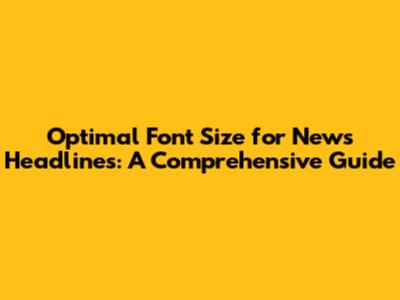
Optimal Font Size For News Headlines: A Comprehensive Guide
Optimal Font Size for News Headlines: A Comprehensive Guide
Choosing the right font size for news headlines is super important, guys! It’s not just about making things look pretty; it’s about grabbing attention, making sure your message is clear, and keeping readers hooked. Think of it this way: the headline is the first handshake with your audience. You want it to be firm, friendly, and memorable. So, let's dive into why font size matters, what the pros usually do, and how you can pick the perfect size for your awesome content.
Why Font Size Matters for Headlines
Font size, believe it or not, plays a massive role in how people perceive your content. A headline that's too small might get lost in the noise, while one that's too large can feel overwhelming and unprofessional. The goal is to strike that sweet spot where the headline is both eye-catching and easy to read. When readers can quickly grasp the essence of your article, they're way more likely to click and read on. This is especially true in today's fast-paced digital world, where everyone is bombarded with information.
Moreover, the right font size impacts readability and user experience. Imagine trying to read a headline that's so tiny you have to squint – not a great experience, right? On the flip side, a headline that's excessively large can disrupt the visual flow of the page, making it hard for readers to navigate. By carefully selecting the appropriate font size, you can ensure that your headlines are accessible and enjoyable to read, which ultimately boosts engagement and readership.
Think about the platform too. What works on a desktop might not work on a mobile phone. You have to consider how your headlines will look on different devices and screen sizes. Responsiveness is key! A well-chosen font size contributes significantly to the overall aesthetic appeal of your website or publication. It helps create a visually pleasing and cohesive design that enhances the user experience. When headlines are appropriately sized and styled, they complement the surrounding content and contribute to a professional and polished look. This attention to detail can make a big difference in how readers perceive the credibility and quality of your publication.
Standard Font Sizes Used by News Outlets
So, what do the pros do? Well, it varies, but there are some common ranges you'll see across the board. For desktop sites, news outlets often use font sizes between 24 and 36 pixels for main headlines. This range tends to provide a good balance between visibility and aesthetics. Subheadings usually fall in the 18 to 24 pixel range, creating a clear hierarchy and helping readers scan the content easily.
On mobile devices, things change a bit because of the smaller screen size. Headlines are often sized between 18 and 24 pixels to ensure they remain readable without overwhelming the screen. Subheadings typically range from 14 to 18 pixels. Consistency is also key. Major news sites usually stick to a limited set of font sizes and styles to maintain a cohesive brand identity. This makes it easier for readers to recognize and trust their content.
Of course, there are always exceptions. Some publications might use larger or smaller font sizes depending on their specific design aesthetic and target audience. However, these standard ranges serve as a good starting point for most news outlets. Analyzing popular news websites can give you a sense of what works well in practice. Pay attention to how they use font sizes, styles, and spacing to create visually appealing and readable headlines. You can also use online tools to test the readability of your headlines and ensure they meet accessibility standards.
Factors to Consider When Choosing Font Size
Okay, so how do you pick the perfect font size? It's not just a random choice; a lot goes into it. First off, think about your audience. Who are you writing for? A younger audience might be okay with bolder, larger fonts, while an older demographic might appreciate something a bit more conservative and readable. Knowing your audience helps you tailor your font choices to their preferences and needs.
Next, consider the font itself. Some fonts look bigger than others even at the same pixel size. A bold, blocky font will naturally stand out more than a thin, elegant one. Experiment with different fonts and sizes to see what looks best for your specific headline. Also, think about the length of your headlines. A super long headline might need a slightly smaller font size to fit nicely on the page. Short, punchy headlines can usually handle a larger font size.
Your website's design also plays a big role. The font size you choose should complement the overall look and feel of your site. It should also work well with your brand's color scheme and imagery. Consistency is super important here! Make sure your headlines look consistent across all pages and devices. This helps create a professional and cohesive user experience. Finally, always test your font choices on different devices and browsers. What looks great on your desktop might not look so great on a mobile phone. Use responsive design techniques to ensure your headlines look their best no matter how your audience is viewing them.
Best Practices for Headline Typography
Conclusion
So, there you have it! Picking the right font size for your news headlines is a mix of art and science. It's about understanding your audience, knowing your fonts, and using the right tools to test and optimize. By following these tips and best practices, you can create headlines that grab attention, improve readability, and ultimately drive more engagement with your content. Remember, your headline is your first impression, so make it count!